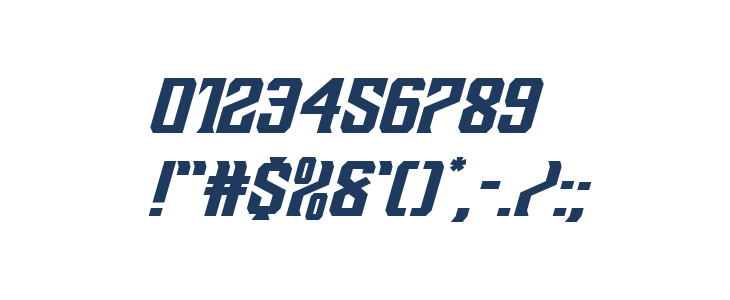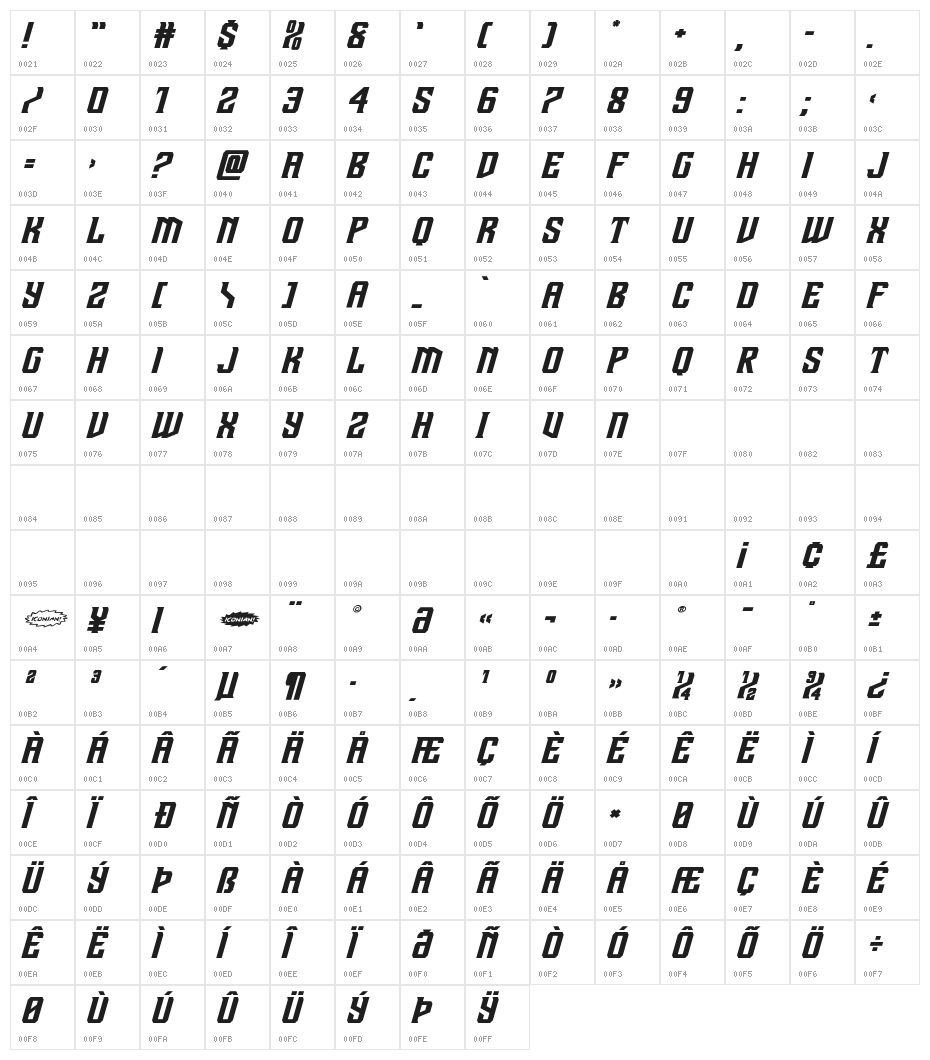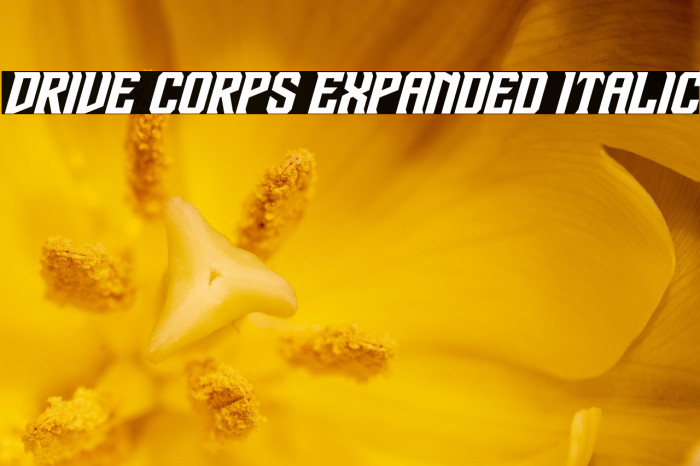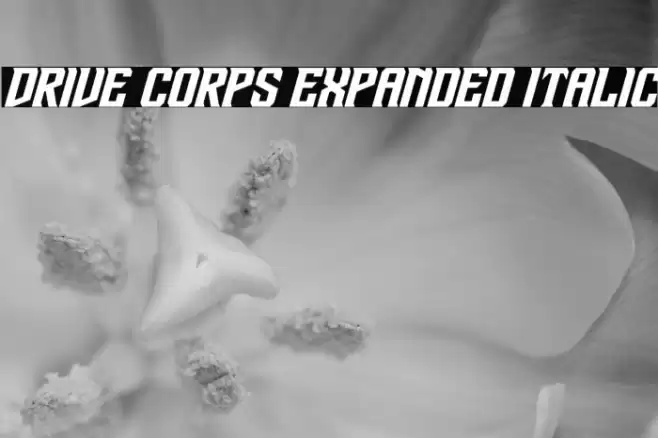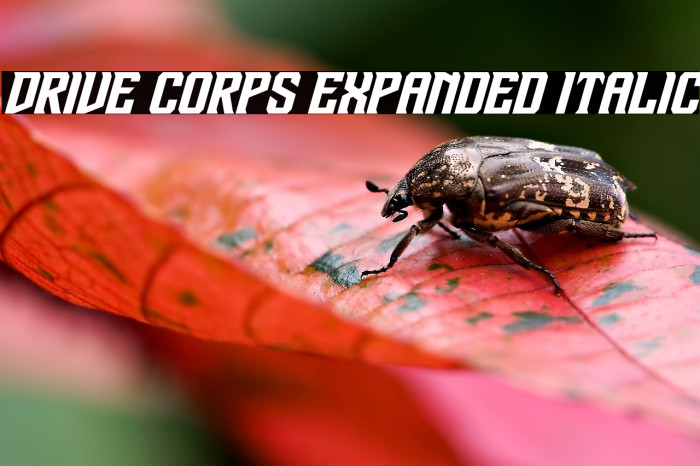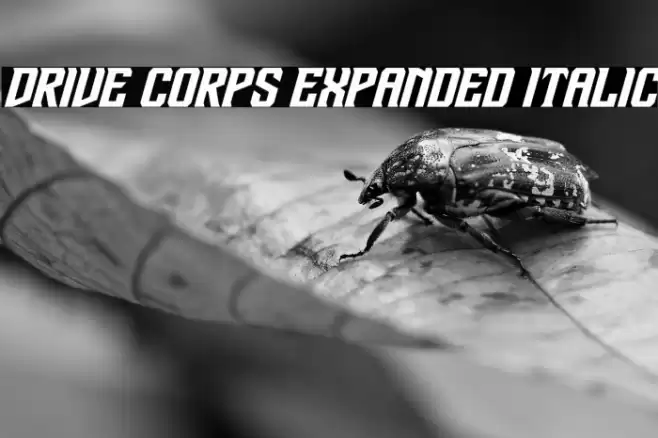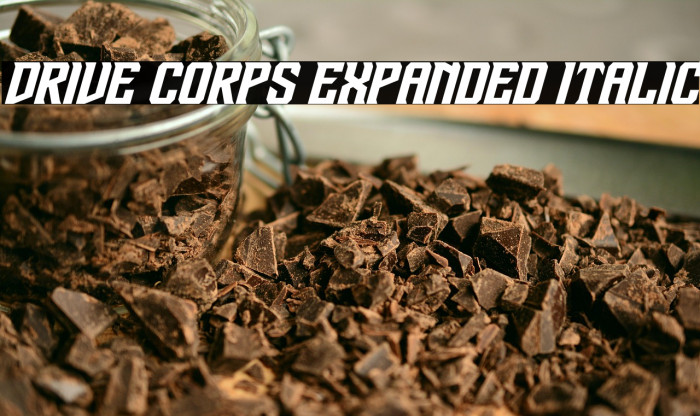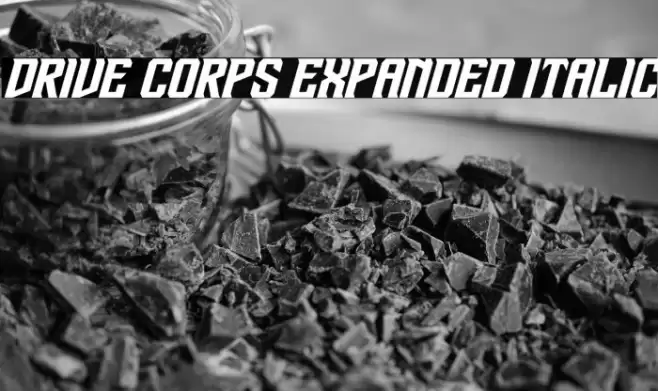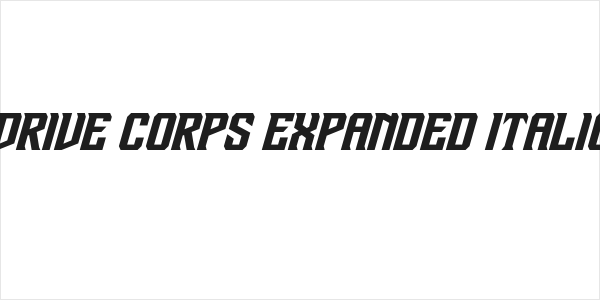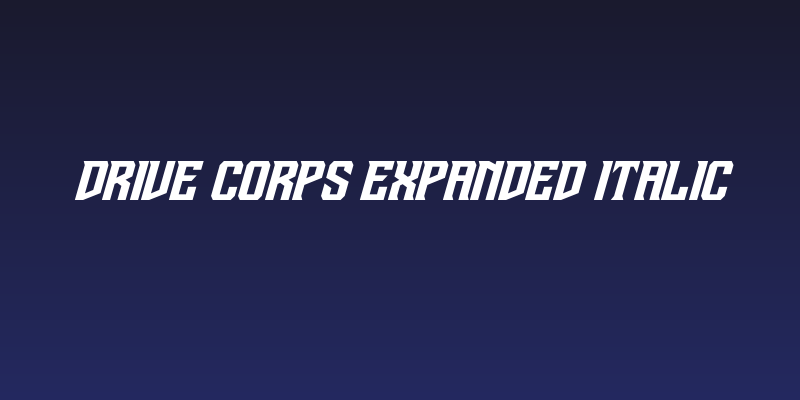
Drive Corps Expanded Italic Font
Drive Corps Expanded Italic Description
This font features a bold and dynamic style with an italicized slant, giving it a sense of motion and energy. The characters are expanded, providing a wide and impactful presence. The angular and geometric design elements contribute to a modern and futuristic aesthetic. The uppercase and lowercase letters maintain a consistent style, with sharp edges and a strong visual impact. Numbers and special characters are designed to match the bold and energetic theme, making them suitable for attention-grabbing designs.
| Proposed Projects | Ideal for sports branding, automotive designs, video game titles, and dynamic posters. |